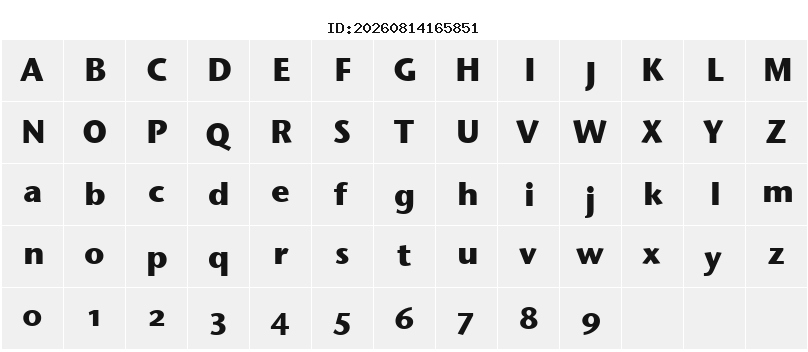
About Stone Sans OS ITC TT.ttf
Stone Sans OS ITC TT.ttf is a modern, elegant sans-serif font designed for ultimate readability and visual harmony. Perfect for branding, headlines, web design, and print materials.